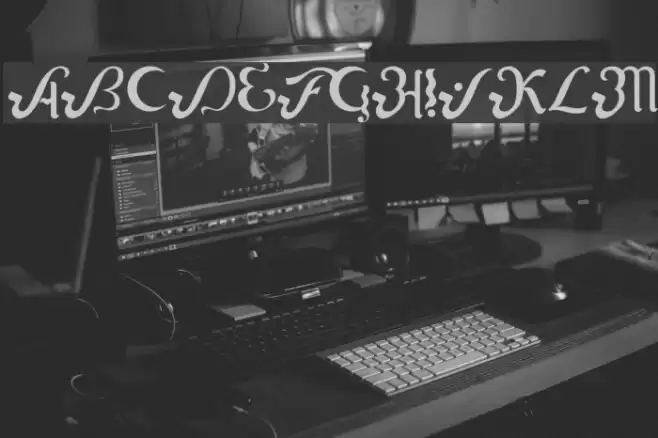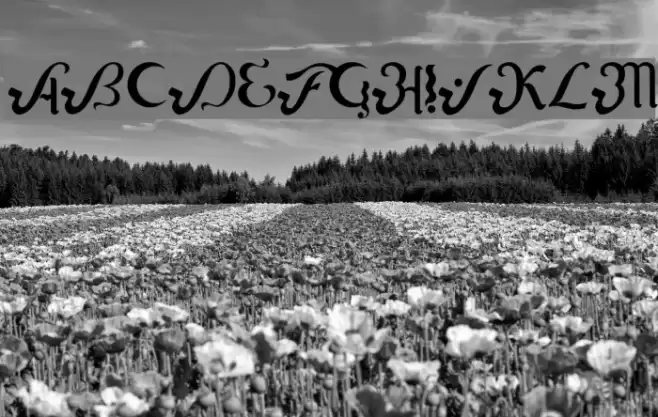
Lipi Font
Lipi Description
This font features a unique blend of traditional and modern elements, characterized by its decorative and intricate design. The uppercase letters exhibit a strong presence with bold strokes and elaborate curves, while the lowercase letters maintain a consistent style with slightly more fluidity. The numbers are distinct and maintain the decorative theme, ensuring readability. Special characters are crafted with the same attention to detail, adding to the font's overall aesthetic. The font's style is reminiscent of calligraphy, with a touch of modern flair, making it suitable for creative and artistic projects.
A decorative font with bold, intricate strokes and a calligraphic influence from Uncategorized fonts.
- Proposed Projects: Ideal for invitations, branding, logos, and artistic projects that require a touch of elegance and creativity.
- Use Case: Logos, Headlines, Artistic projects